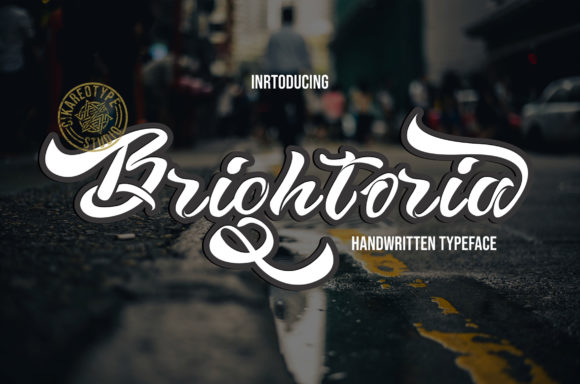
The Brightoria Font: A Handwritten Script Font for Creative Projects
Have you ever been working on a design project, and suddenly, you’re stuck on finding the perfect font? I recall a recent experience where I was tasked with creating a logo for a client’s handmade jewelry business. The client wanted a font that looked friendly, approachable, and, most importantly, handmade. After scouring through countless font libraries, I stumbled upon the Brightoria font. It was love at first sight! 💕
An Honest Review of Brightoria Font
What I Love About Brightoria Font
• ✨ The handwritten look and feel of Brightoria font makes it perfect for designs that require a personal touch.
• ✅ It’s a script font with several OpenType features, including Regular and stylistic alternate, giving you plenty of creative options.
• 🎉 The font is PUA encoded, making it easy to access all the glyphs and swashes.
• 💼 Brightoria font is versatile and can be used for various types of graphic designs, such as logotypes, titles, apparel, crafting, packaging, advertising, and more.
While Brightoria font is an excellent choice for many projects, there are a few things to keep in mind:
• ⚠️ Some users might find the font a bit too ornate for certain projects, such as minimalist designs.
• 🤔 The font’s handwritten look may not be suitable for very formal or corporate designs.
Brightoria font was inspired by the beauty of handwritten scripts. The designer, who wishes to remain anonymous, was inspired by the work of calligraphers and lettering artists. They wanted to create a font that captured the essence of handmade writing, while still being legible and versatile.
Q: Is Brightoria font suitable for body text?
A: While Brightoria font is beautiful, it’s best suited for headlines, titles, and short paragraphs. It’s not recommended for long-form body text.